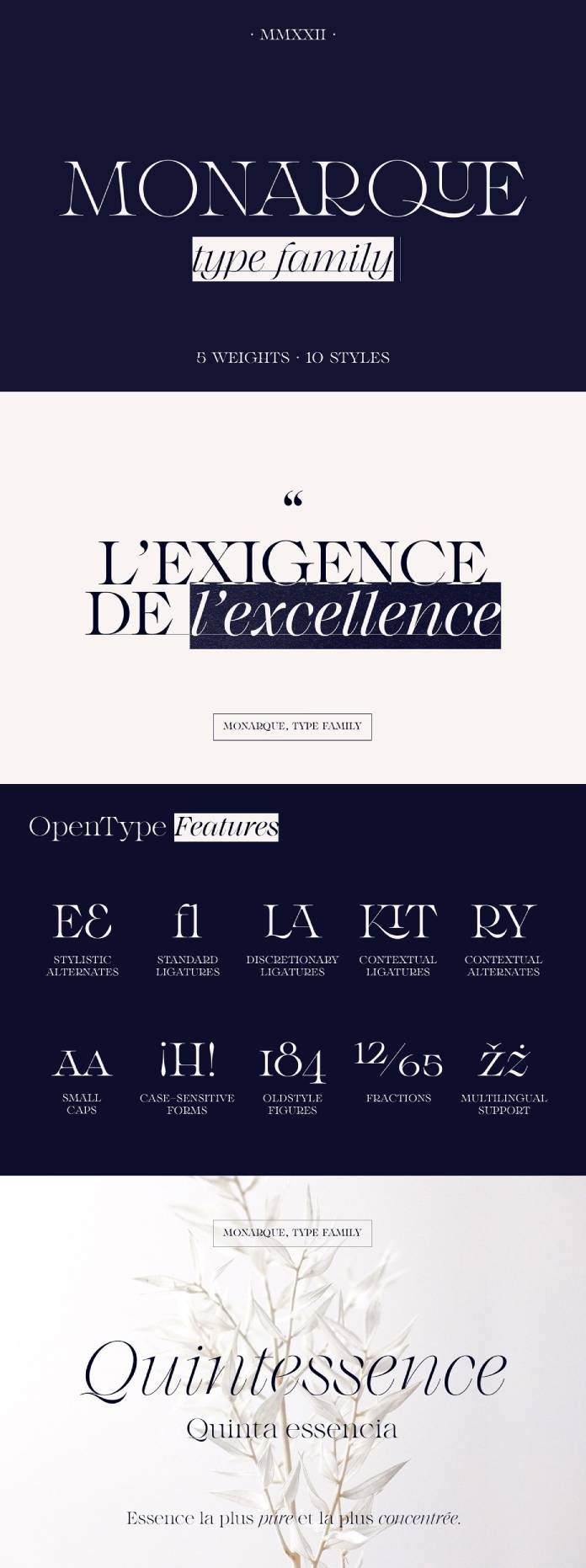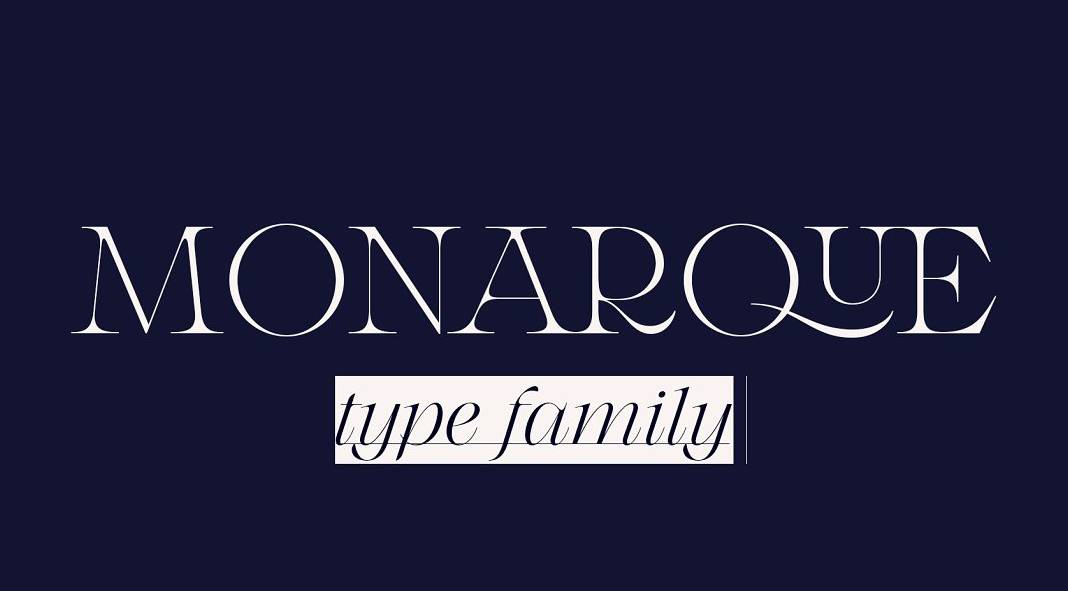
Take a look at Monarque, an elegant font family that has been crafted with fine details.
Created by Jessika Granell of The Paper Town, Monarque is a typeface of sophistication, designed with extraordinary attention to detail. With this font, your typography will be unlike any other and sure to captivate viewers.
With its large x-height, high stroke contrast, rounded curves, and long sharp serifs, this typeface creates a dramatic look that will make any message stand out with elegance. The italics have been designed to work in harmony with the roman for an even more striking composition. It also includes many uppercase ligatures which ensure legibility when used as part of a line or sentence. Originally created exclusively for all-caps use only; it is now much more versatile and can be put to effective use in multiple contexts.
Designed with plenty of OpenType features, Monarque maximizes typographical quality and makes the text more legible. The family features a range of options such as stylistic alternatives, contextual replacements, discretionary and standard ligatures, old-style figures (numeral formatting), small caps fonts that retain their original form when all letters in the word are capitalized; along with case-sensitive forms.